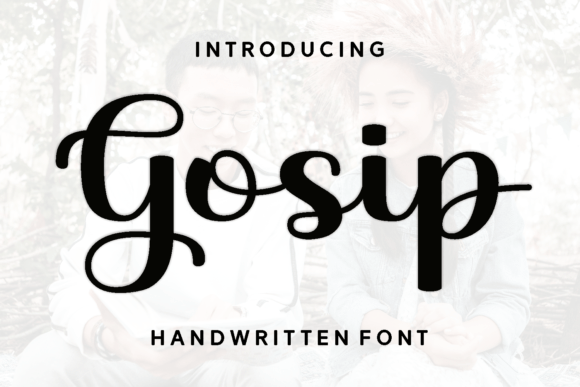
Gosip Font: Elevate Your Brand with Scratchones Calligraphy Font
In the world of typography, few fonts manage to convey the perfect blend of class, elegance, and fashion. However, Scratchones Calligraphy Font has successfully achieved this feat, making it an excellent choice for those seeking to elevate their brand’s visual identity. This exquisite, handmade font is a masterclass in feminine articulation, perfect for crafting exclusive invitations, captivating letterheads, and luxury product branding.
The Art of Calligraphy: A Timeless Elegance
Calligraphy has long been revered for its beauty and sophistication. This ancient art form has been a cornerstone of elegant writing, used in various forms of artistic expression, from wedding invitations to high-end branding. Scratchones Calligraphy Font takes inspiration from this rich heritage, infusing it with a modern twist that appeals to contemporary tastes.
What Makes Scratchones Calligraphy Font Stand Out?
Scratchones Calligraphy Font boasts several features that set it apart from other fonts. Its enriching ligatures allow for a seamless flow of letters, creating a fluid and natural look that mimics the handwriting of a skilled calligrapher. This font is not just a collection of letters; it’s an experience that transforms every scribble into a signature style.
Feminine Articulation: A Touch of Elegance
One of the defining characteristics of Scratchones Calligraphy Font is its feminine articulation. This font is designed to evoke a sense of elegance and sophistication, making it perfect for applications where a touch of class is required. Whether you’re creating wedding invitations, luxury product branding, or simply want to add a touch of elegance to your letterheads, Scratchones Calligraphy Font is an excellent choice.
Perfect for Exclusive Invitations and Luxury Branding
Scratchones Calligraphy Font is specifically designed for exclusive invitations, captivating letterheads, and luxury product branding. Its unique blend of class, elegance, and fashion makes it an excellent choice for high-end applications. With this font, you can create stunning wedding invitations, elegant business letters, and sophisticated branding that exudes luxury and refinement.
Example Use Cases:
- Wedding invitations and ceremony programs
- Luxury product branding and packaging
- Exclusive event invitations and marketing materials
- Elegant business letters and letterheads
How Scratchones Calligraphy Font Can Elevate Your Brand
In today’s competitive market, establishing a strong brand identity is crucial. Scratchones Calligraphy Font can help you achieve this by adding a touch of elegance and sophistication to your brand’s visual identity. With this font, you can create a consistent and cohesive look across all your marketing materials, from business letters to social media graphics.
Benefits of Using Scratchones Calligraphy Font:
- Instantly elevate your brand’s visual identity
- Create a consistent and cohesive look across all marketing materials
- Add a touch of elegance and sophistication to your brand
- Perfect for high-end applications and luxury branding
Pairing with Other Fonts:
When pairing Scratchones Calligraphy Font with other fonts, it’s essential to choose fonts that complement its elegant and sophisticated style. Consider pairing it with clean and modern sans-serif fonts to create a striking contrast.
Color Palette:
The color palette you choose can significantly impact the overall look and feel of your design. Consider using a muted color scheme with neutral tones to let the font take center stage.
In conclusion, Scratchones Calligraphy Font is an exquisite blend of class, elegance, and fashion. Its handmade design and enriching ligatures make it perfect for exclusive invitations, captivating letterheads, and luxury product branding. With its feminine articulation and sophisticated style, this font is sure to elevate your brand’s visual identity and leave a lasting impression on your audience.